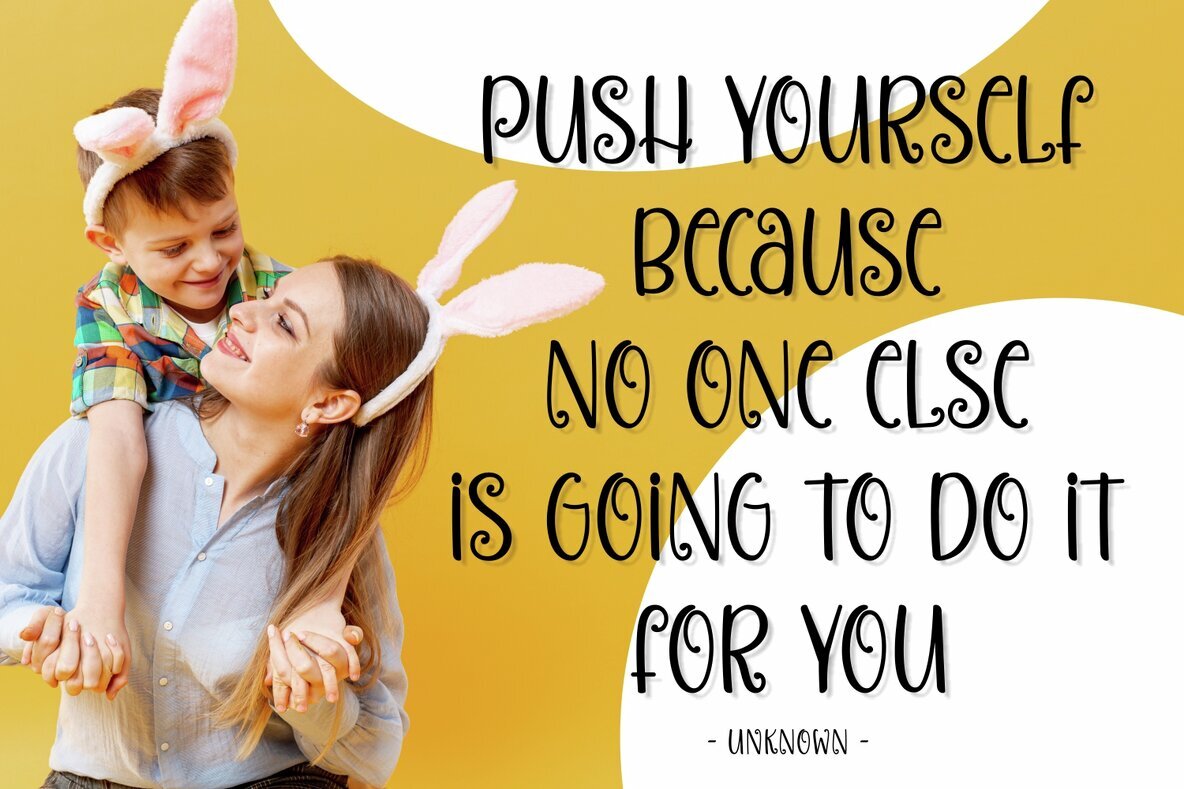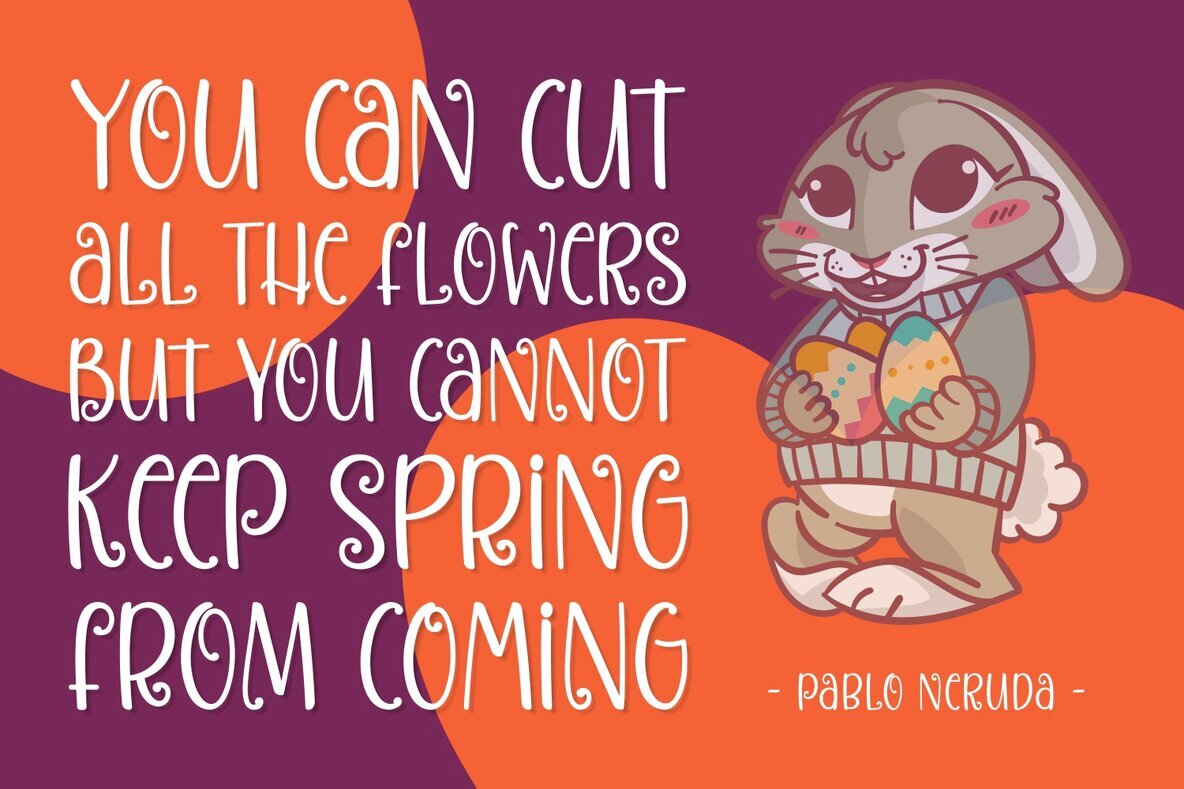
Swirly Easter Font
Swirly Easter
Swirly Easter is a gorgeous and fun Easter-themed script that will make any arts & crafts project look outstanding. Fall in love with its whimsical swirls, and add a playful touch to any creative idea with Swirly Easter!